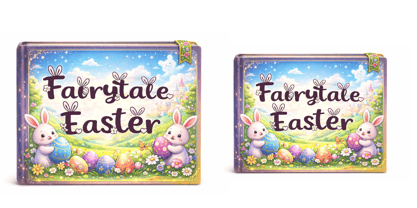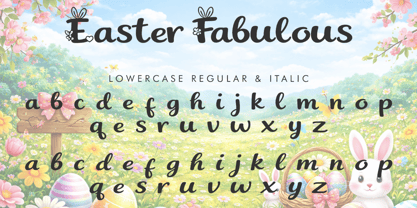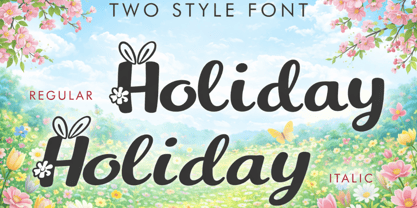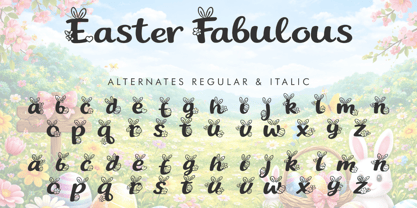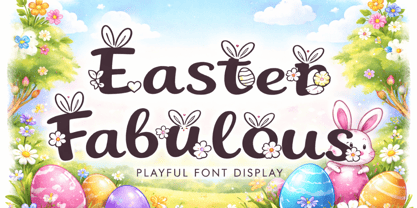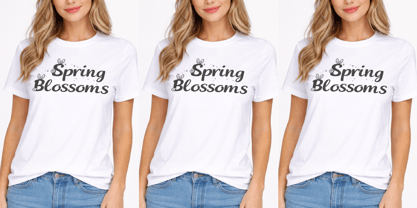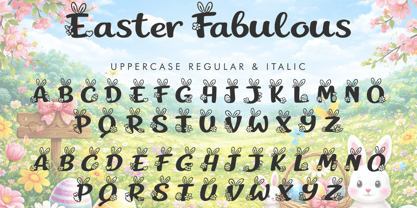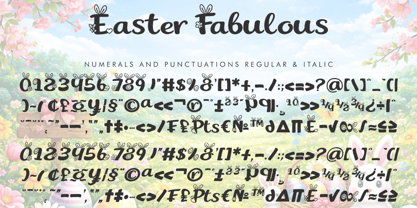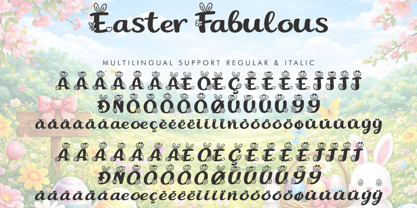
Easter Fabulous Italic
by Yoga Letter
The Easter Fabulous Italic Font Family was designed by Isroni Yoga Prasetya and published by Yoga Letter. Easter Fabulous Italic contains 2 styles and family package options. More about this family
"Easter Fabulous" is a unique and fun display font. It features uppercase and lowercase letters, numerals, punctuations, alternates, and multilingual support. It's perfect for Easter, spring, summer, Christmas, cartoons, comics, fairy tales, children's books, magazines, tattoos, stickers, Mother's Day, embroidery, flowers, St. Patrick's Day, and more.